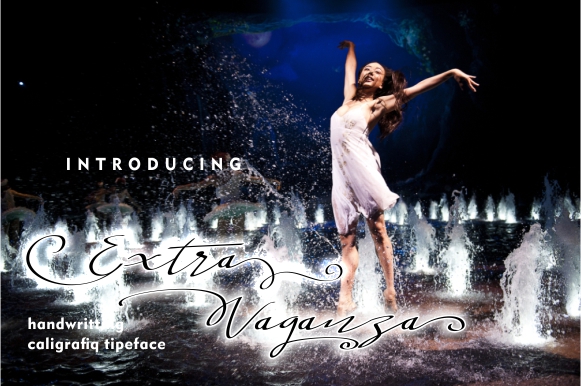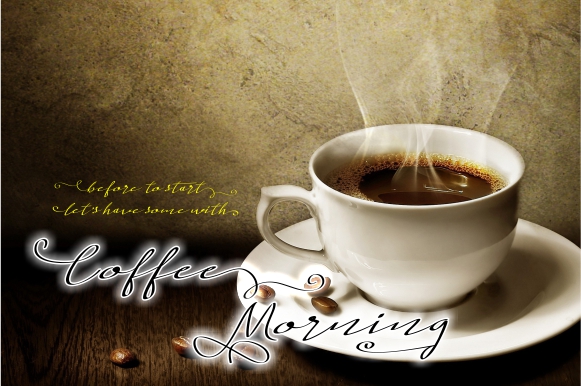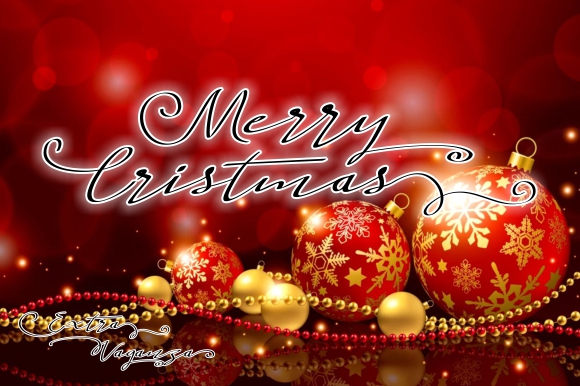
Extra Vaganza Font
About Extra Vaganza Font
Extra Vaganza is a decorative and floral script font, one that will look good across a large range of designs. With a dancing baseline and casualness, Extra Vaganza is a fun and attention grabbing font.